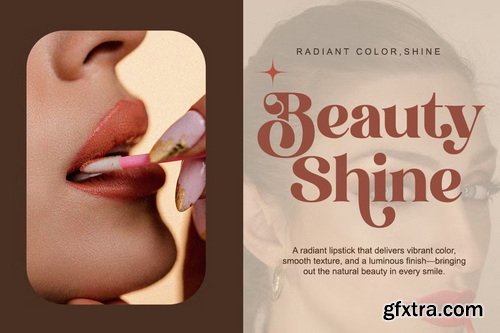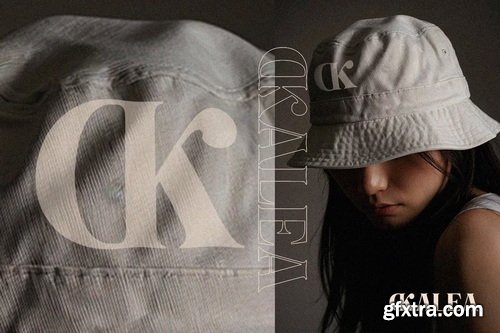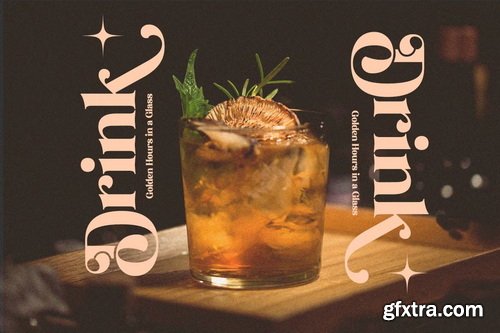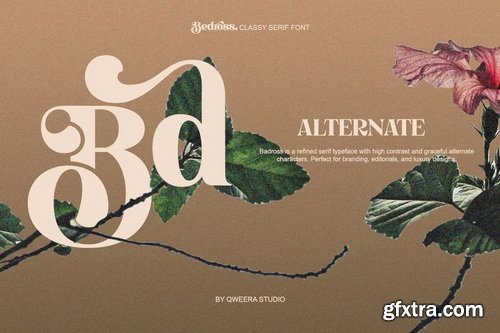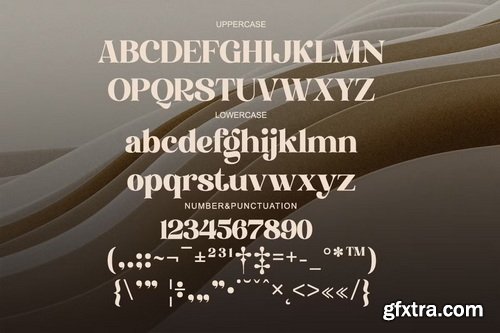
Bedross is a sophisticated serif typeface that masterfully blends contemporary elegance with timeless refinement. Featuring both Regular and Italic styles with exquisite alternates and ligatures, this font is expertly crafted for luxury branding, high-end logos, premium packaging, and editorial designs that demand both beauty and functionality. With its refined serifs and graceful italic variant, Bedross delivers exceptional versatility for discerning brands. The carefully designed alternates and ligatures enable flawless typographic harmony, perfect for creating distinctive visual identities with a touch of class.